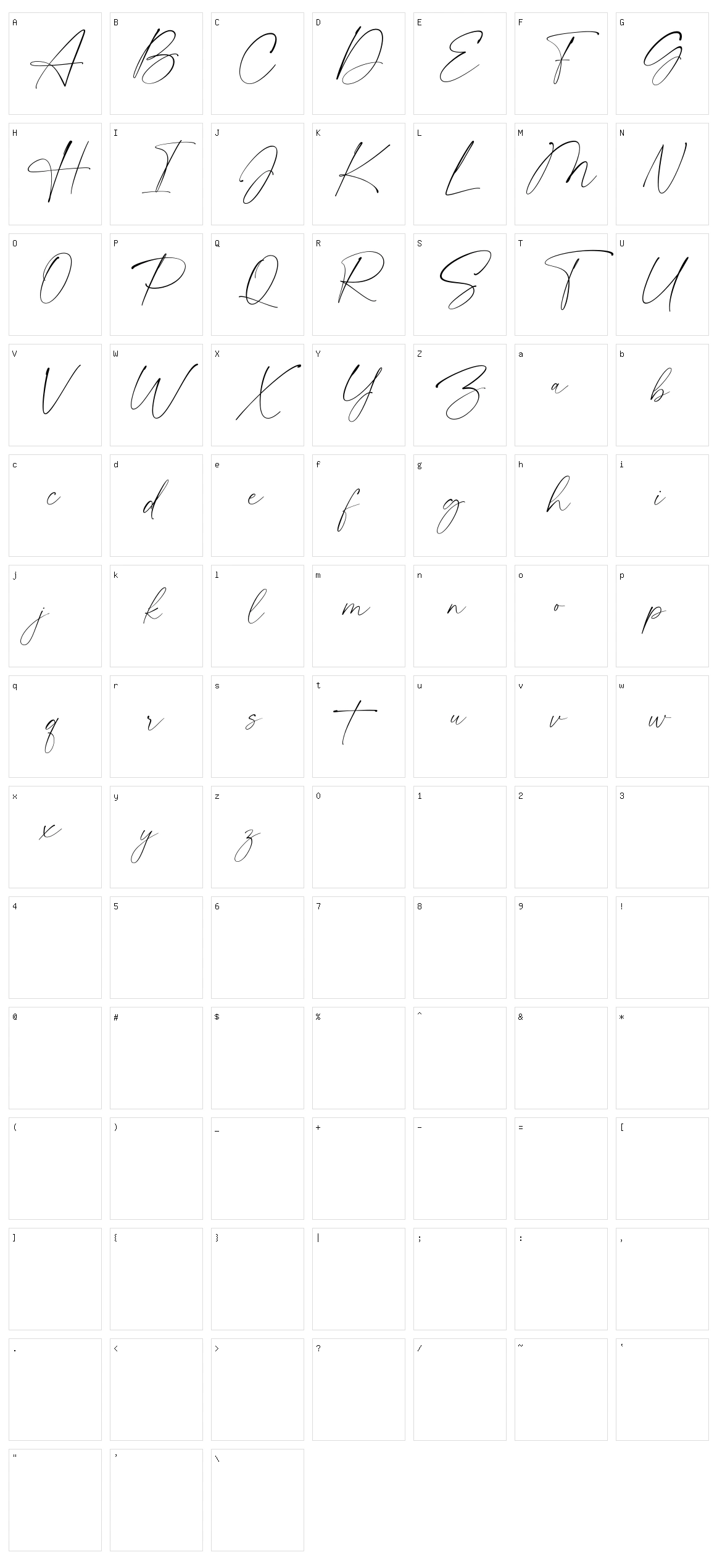
The free font Segatha is carefully designed by Ef Studio, showcasing a thoughtful balance of creativity and usability and falls under the Script font style. When you download the ZIP file, it contains only 58.7 KB of font files, making it lightweight and quick to download. Please review the license details below to understand permitted usage and distribution rights. If license information is not available, we recommend using this font for personal projects only or contacting the author directly for commercial usage permissions.